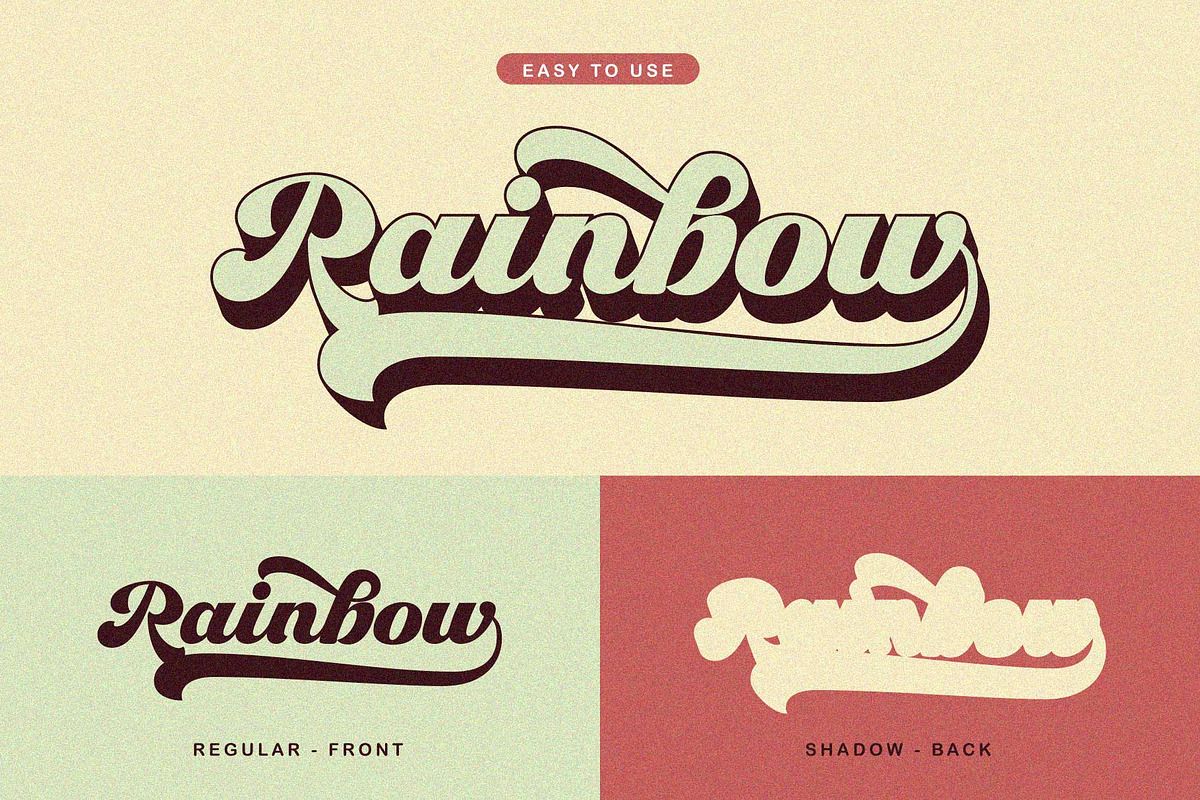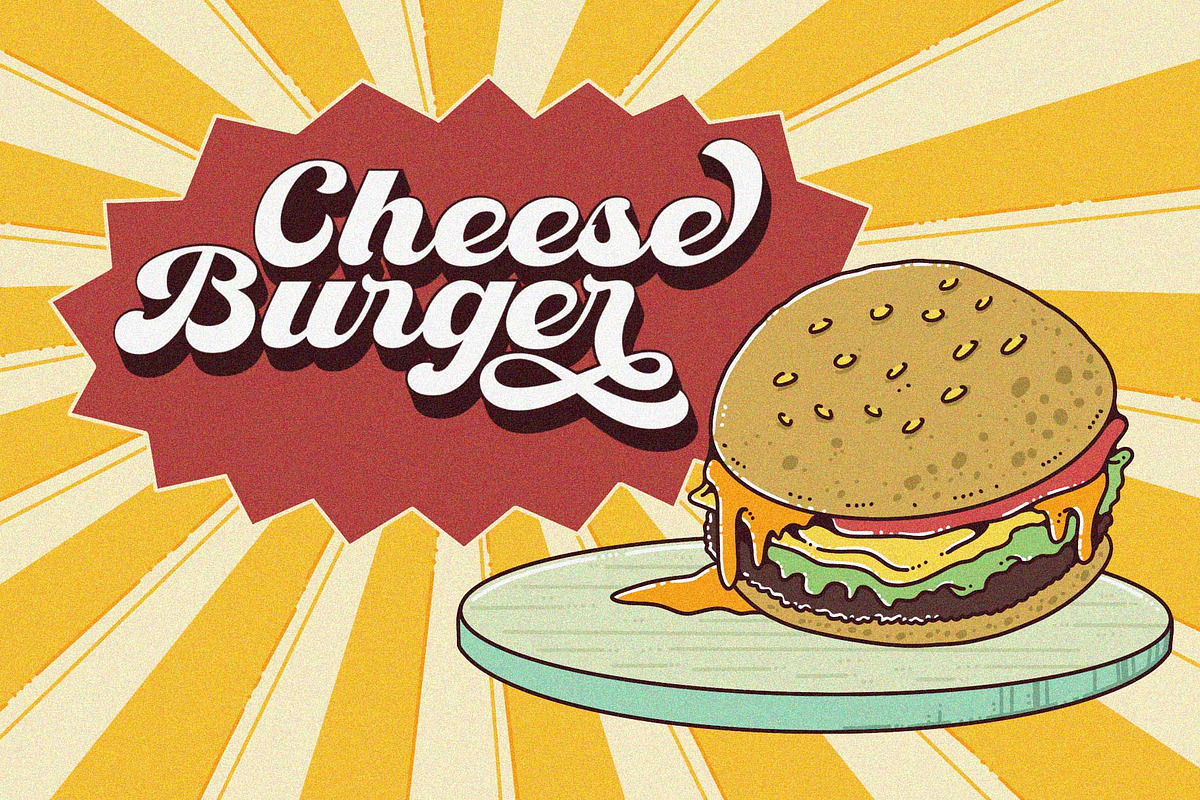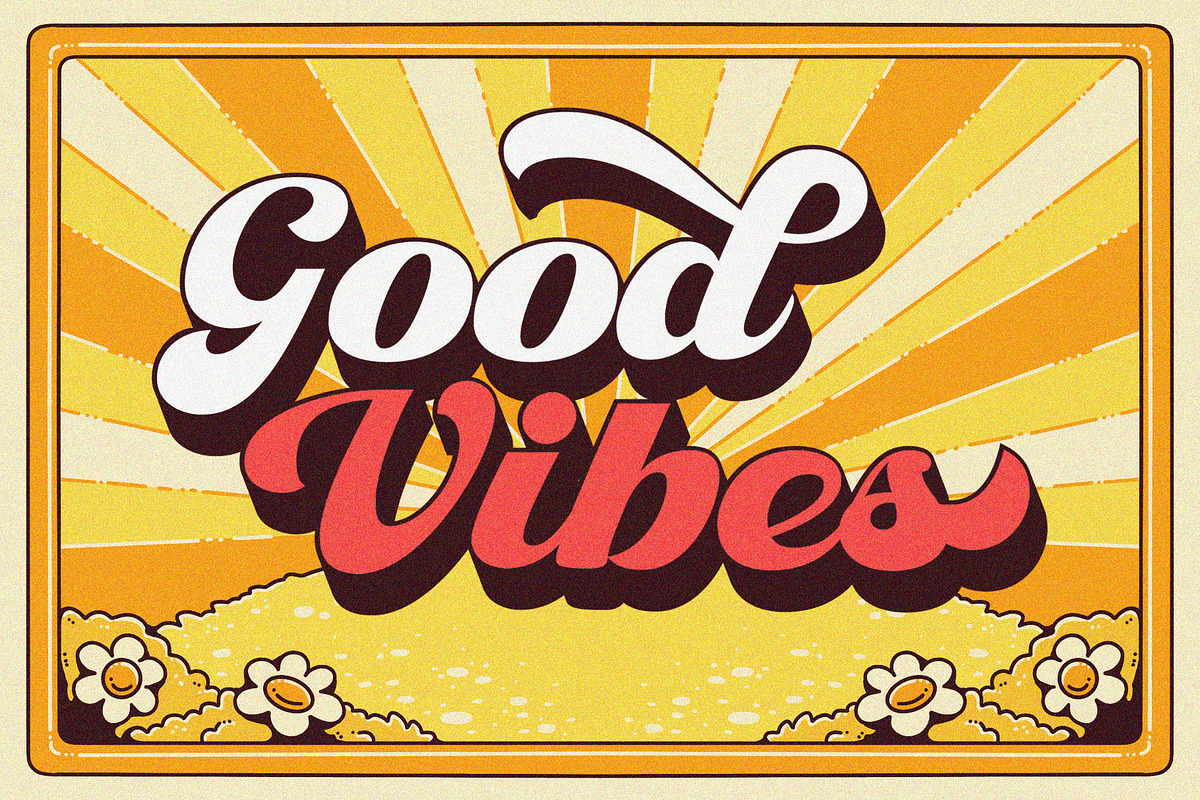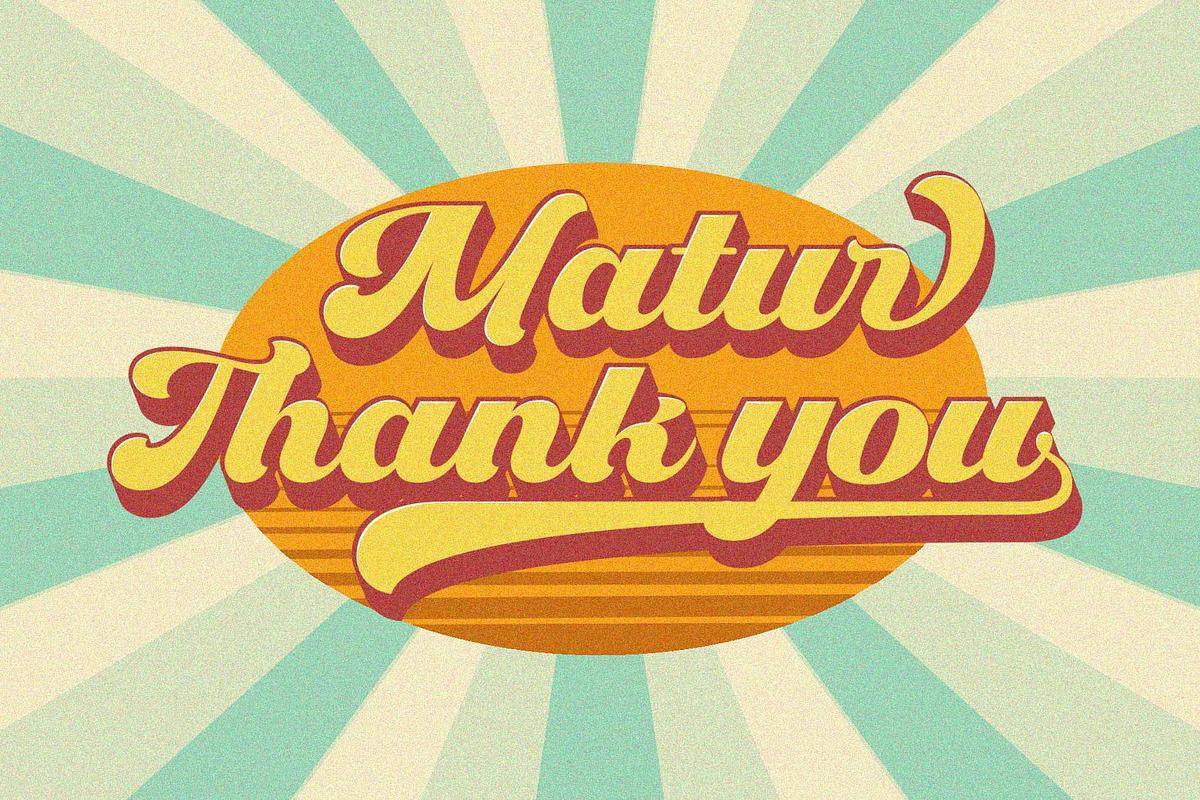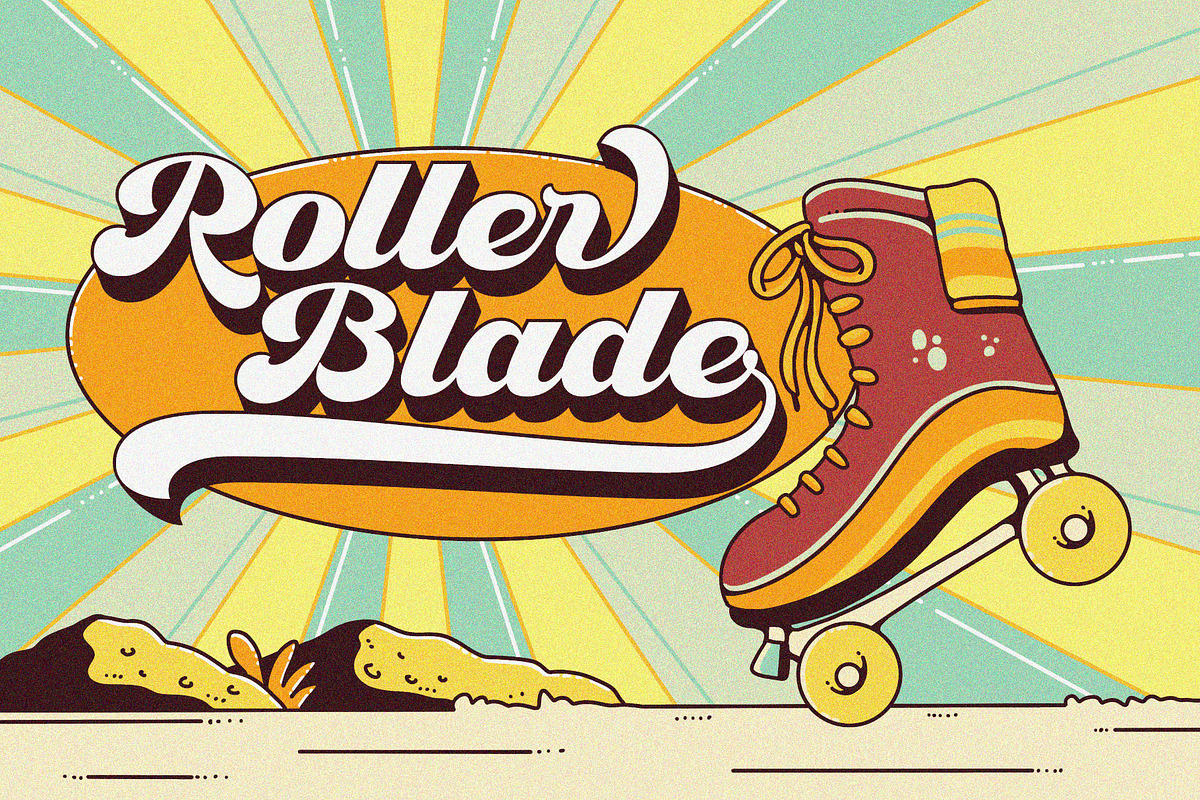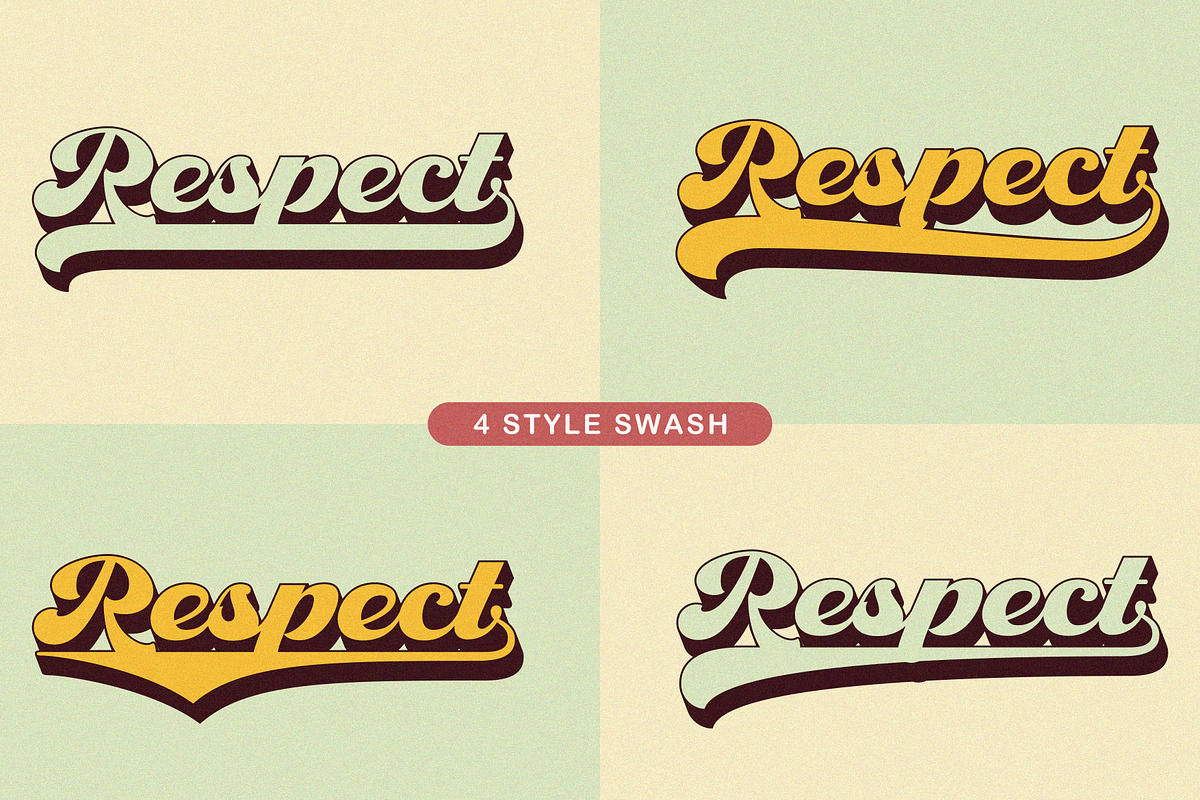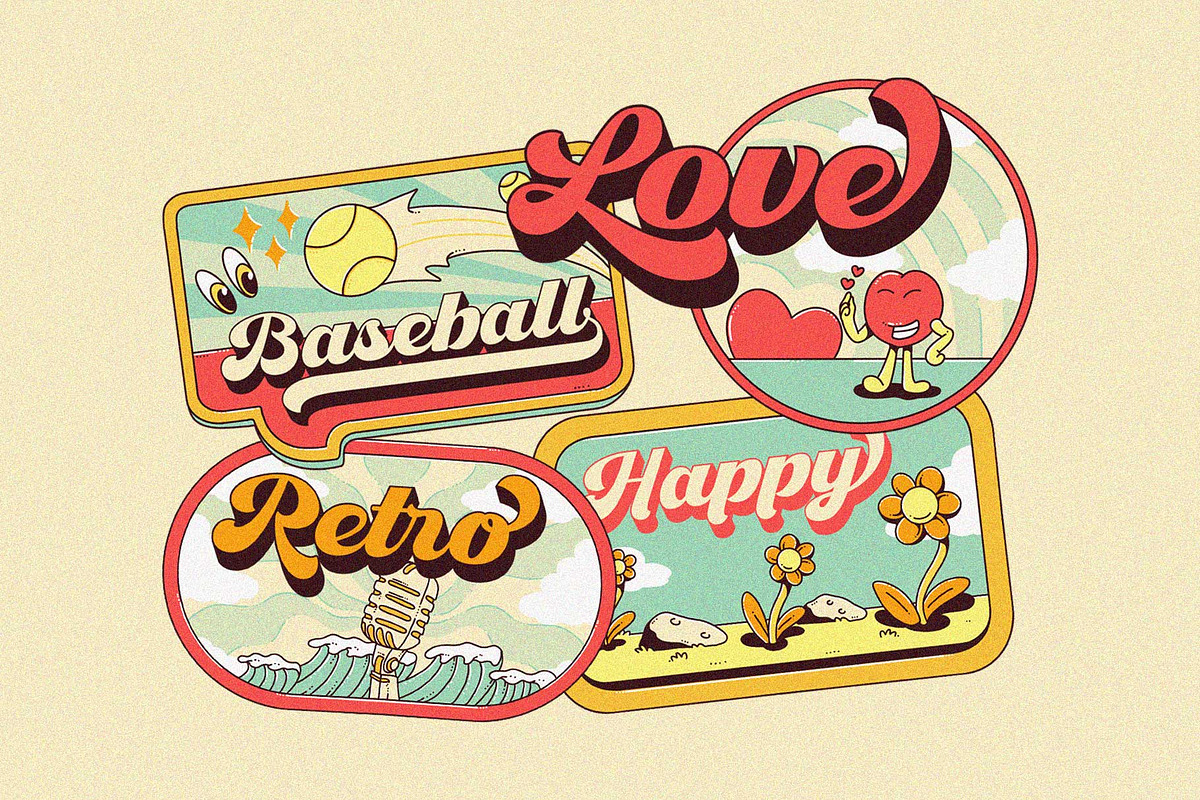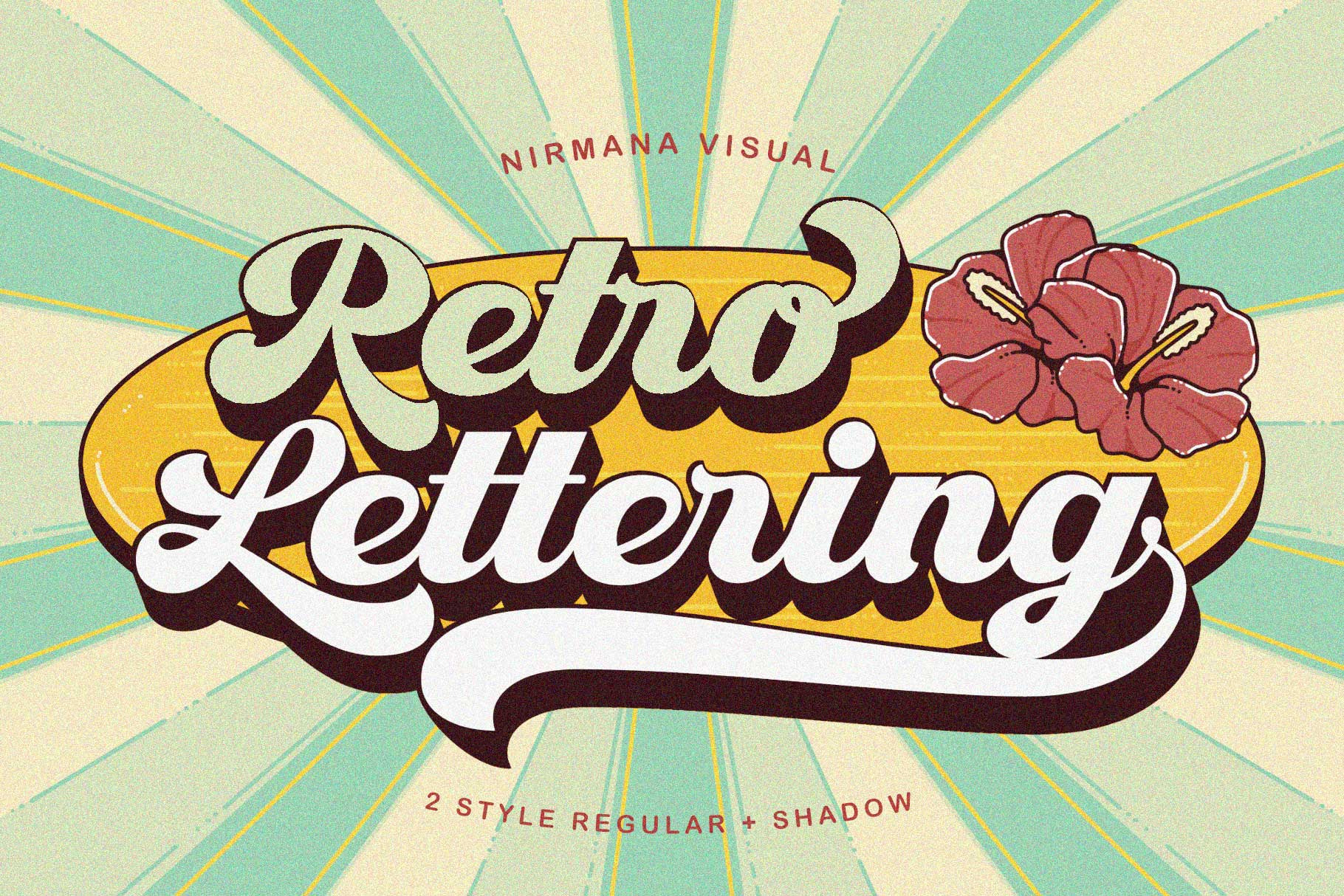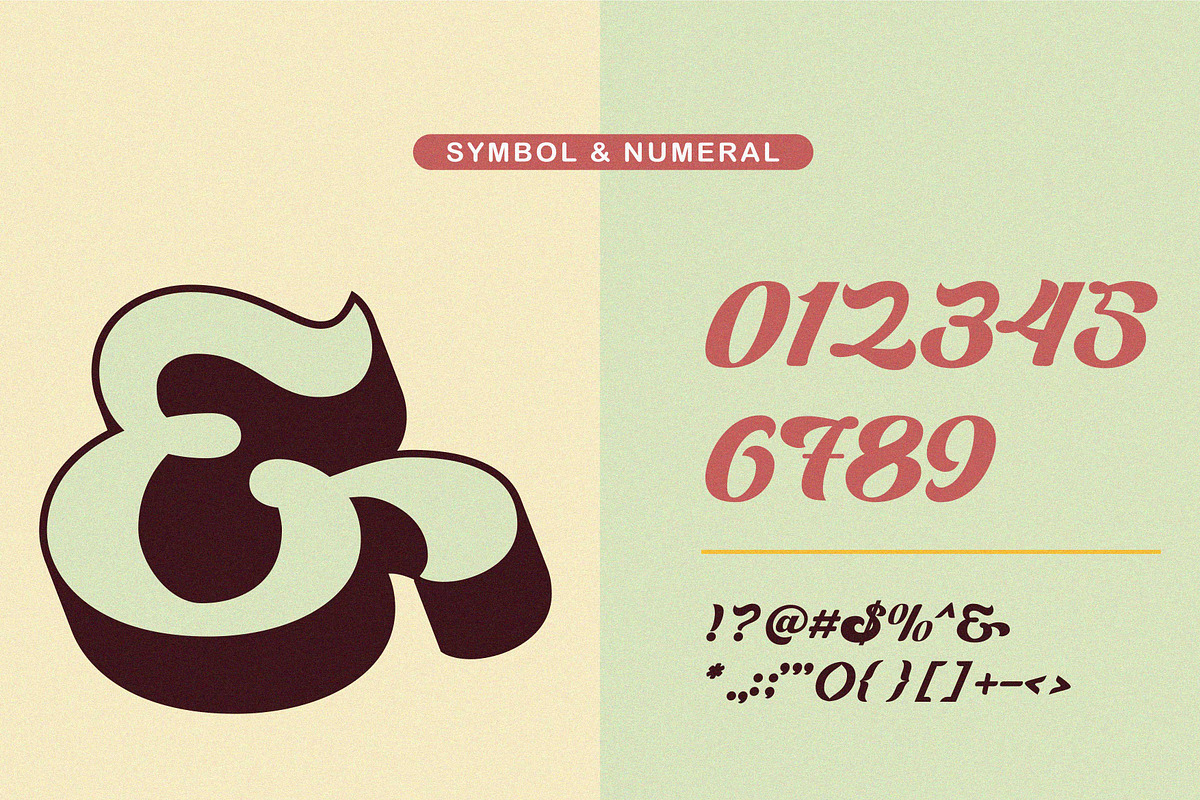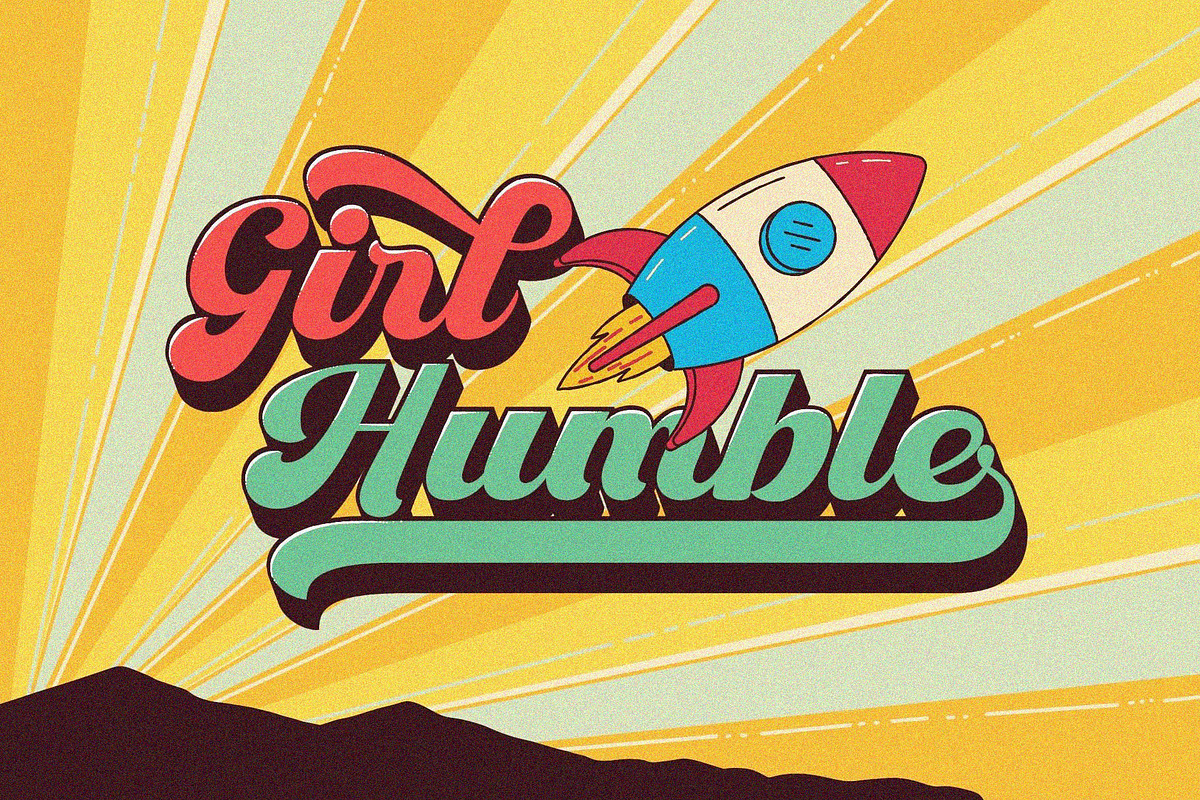
Retro Lettering - Groovy font
Retro Lettering , Inspired by 70s Design Era
Retro Lettering offers beautiful typographic harmony for a diversity of design projects, including logos & branding, social media posts, advertisements & product designs.
2 Style : Regular & shadow